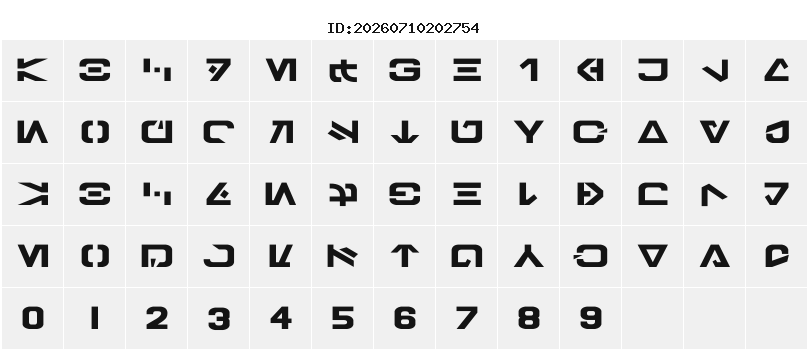
• Font Name: Galactic Basic
• Full Font Name: Galactic Basic
About Galactic Basic.ttf
Galactic Basic.ttf is a modern, elegant sans-serif font designed for ultimate readability and visual harmony. Perfect for branding, headlines, web design, and print materials.